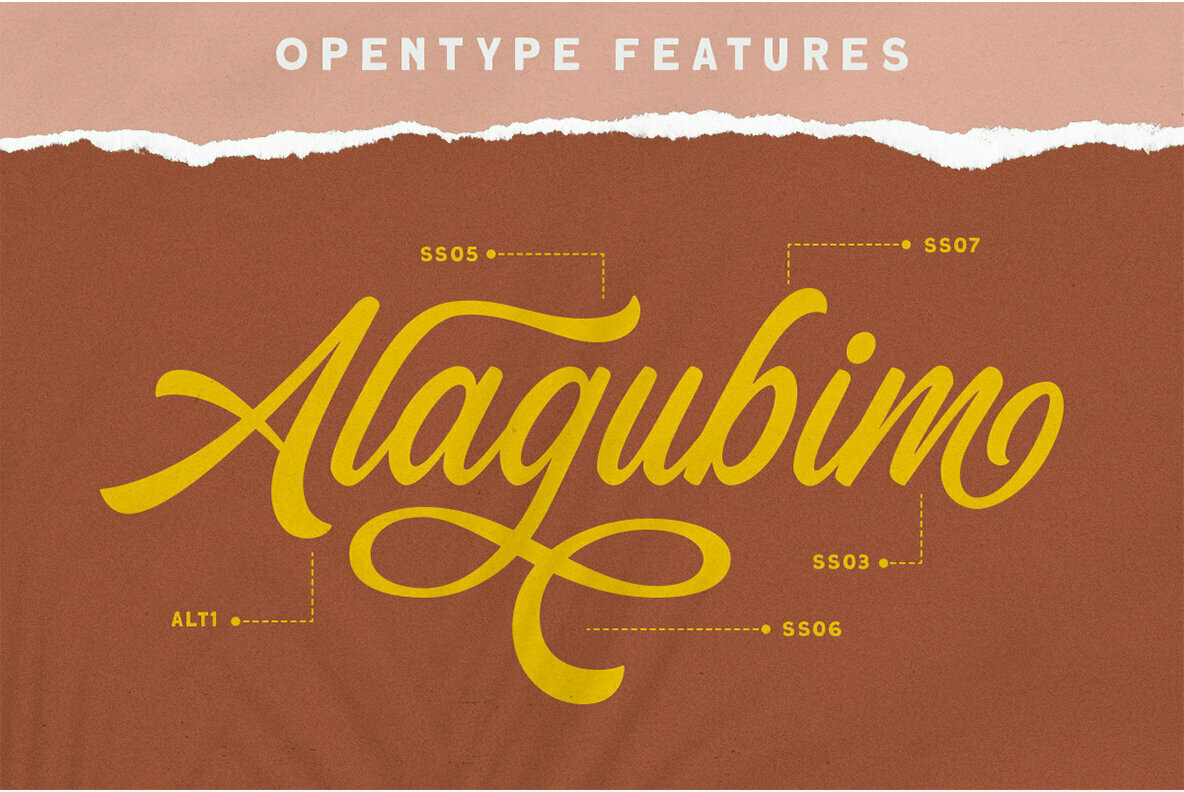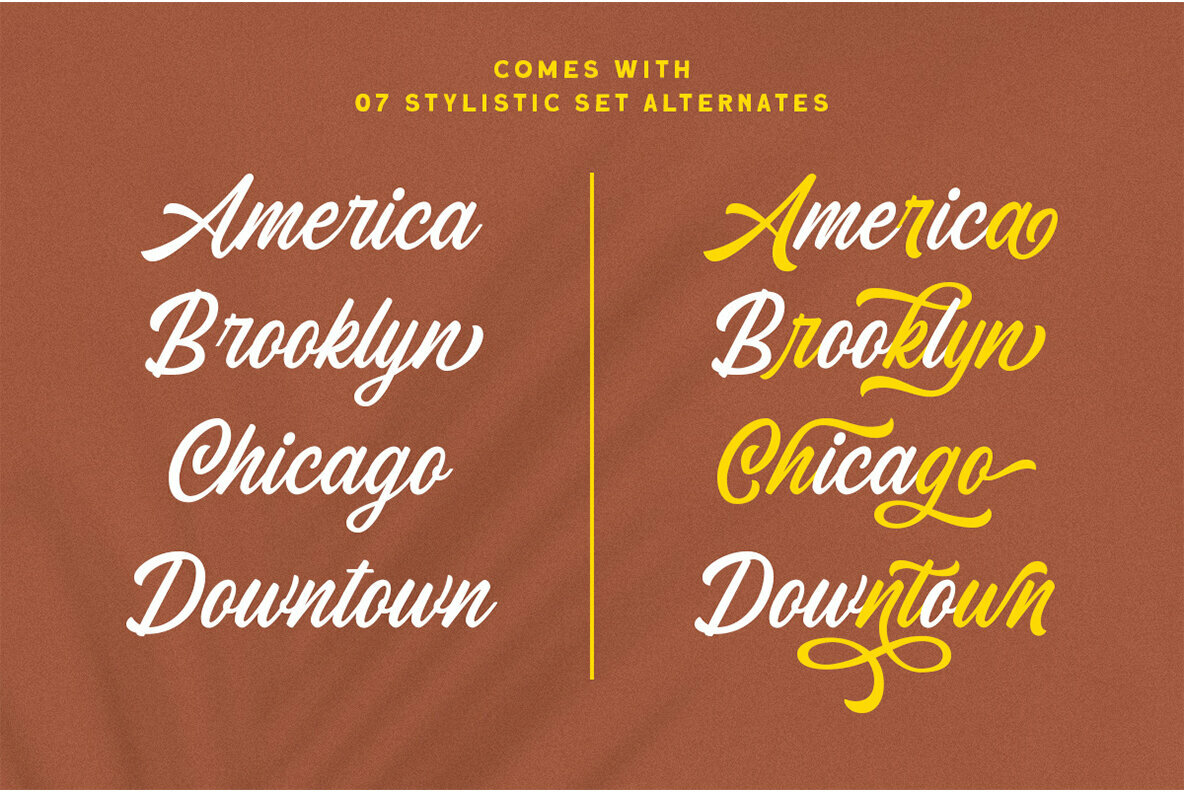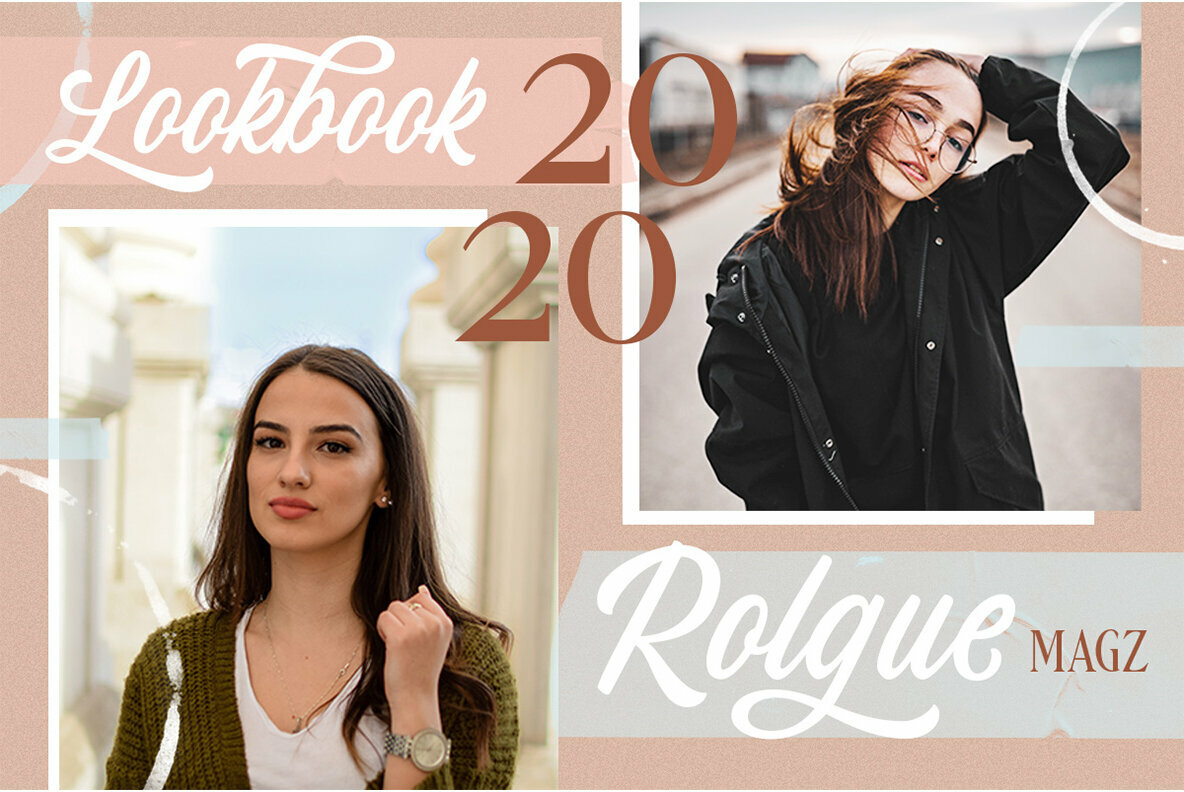
Chanide Script Font
Chanide Script
The Chanide Script by Letterhend Studio presents a typeface that combines elegance with versatility. Featuring distinctive swashes and an array of stylistic set alternates, it is meticulously crafted to enhance the visual appeal of logos and a wide range of formal applications. From invitations and magazines to novels and packaging, this typeface offers ease in creating aesthetically pleasing lettering. Features:Chanide Script: Ornate Lettering Through Unique Swashes